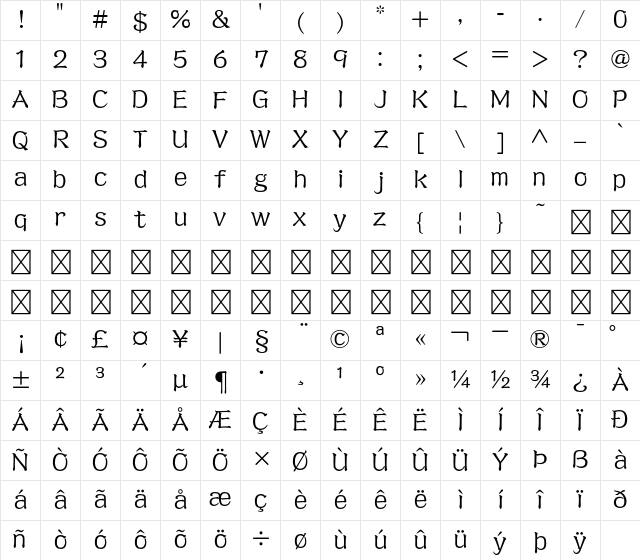
A-OTF Sei Kaisho CB1 Std Regular
Design Context for A-OTF Sei Kaisho CB1 Std
A-OTF Sei Kaisho CB1 Std is a composed and adaptable typeface that performs quietly and consistently across a wide range of design contexts.
Pro Tip: Use A-OTF Sei Kaisho CB1 Std in both headline and body roles to test its range before committing to a single application.